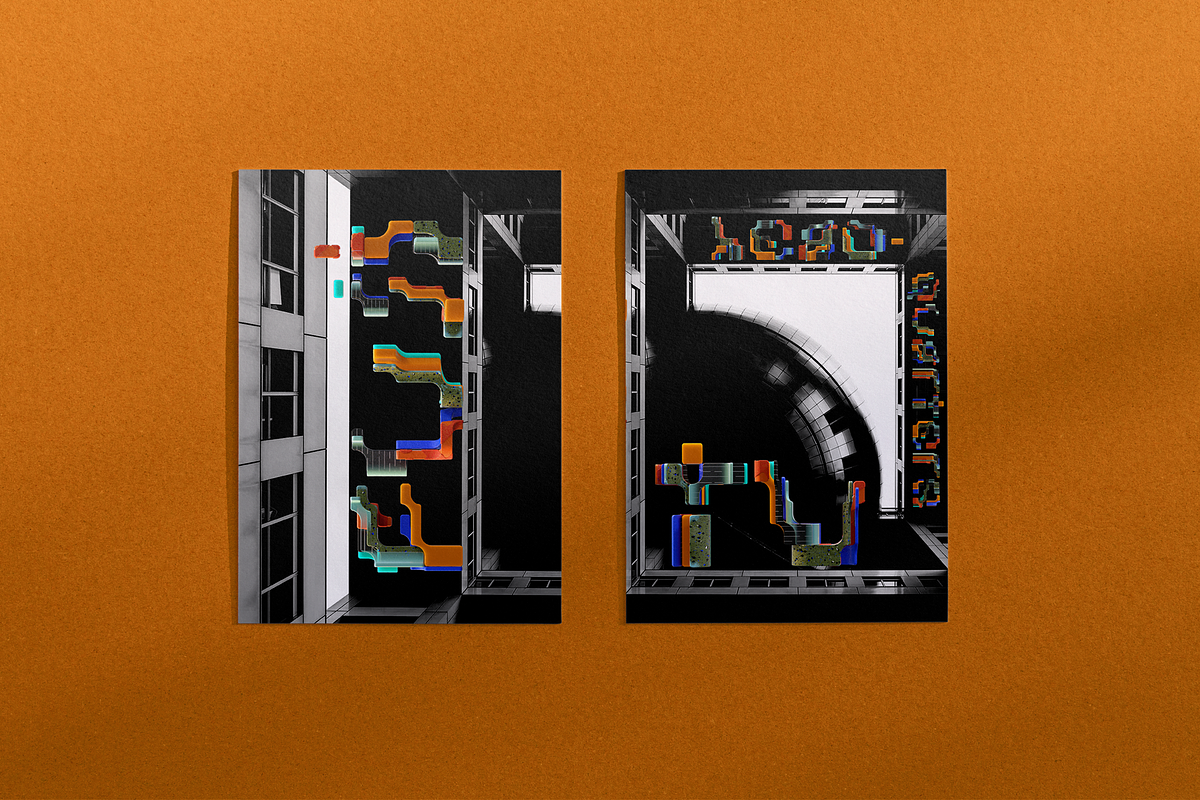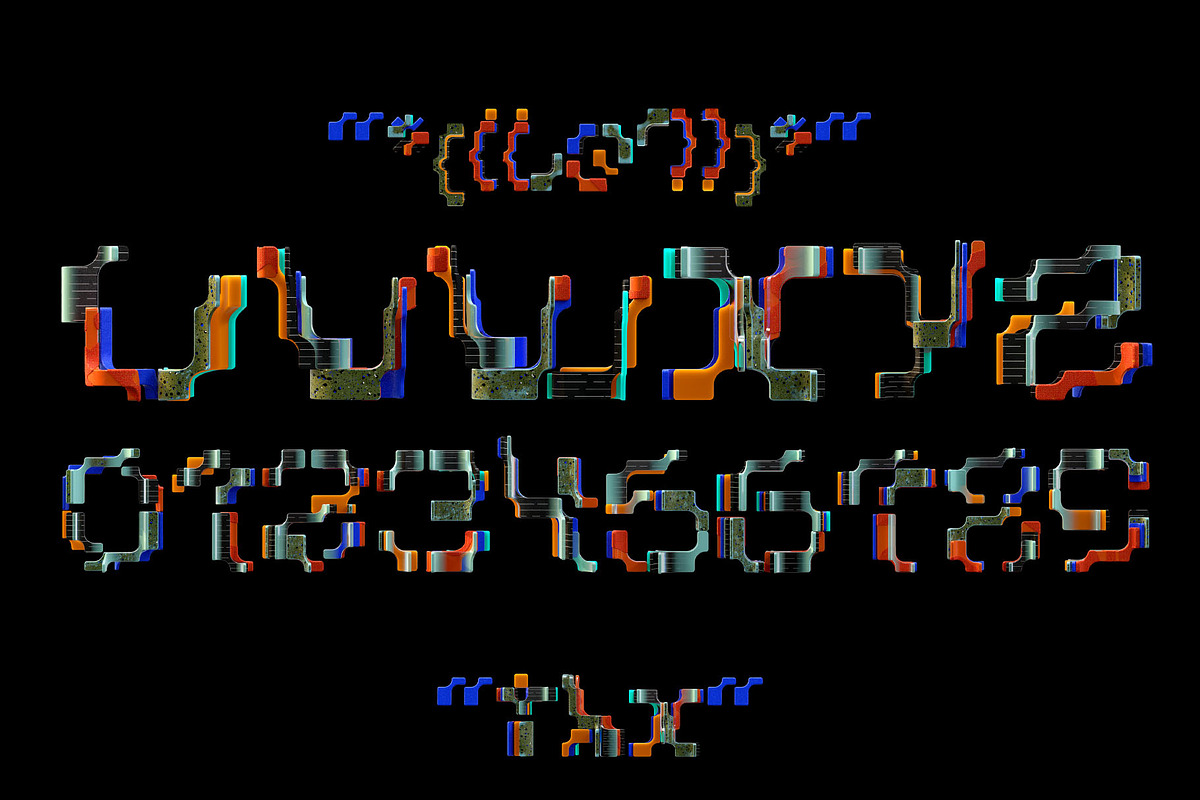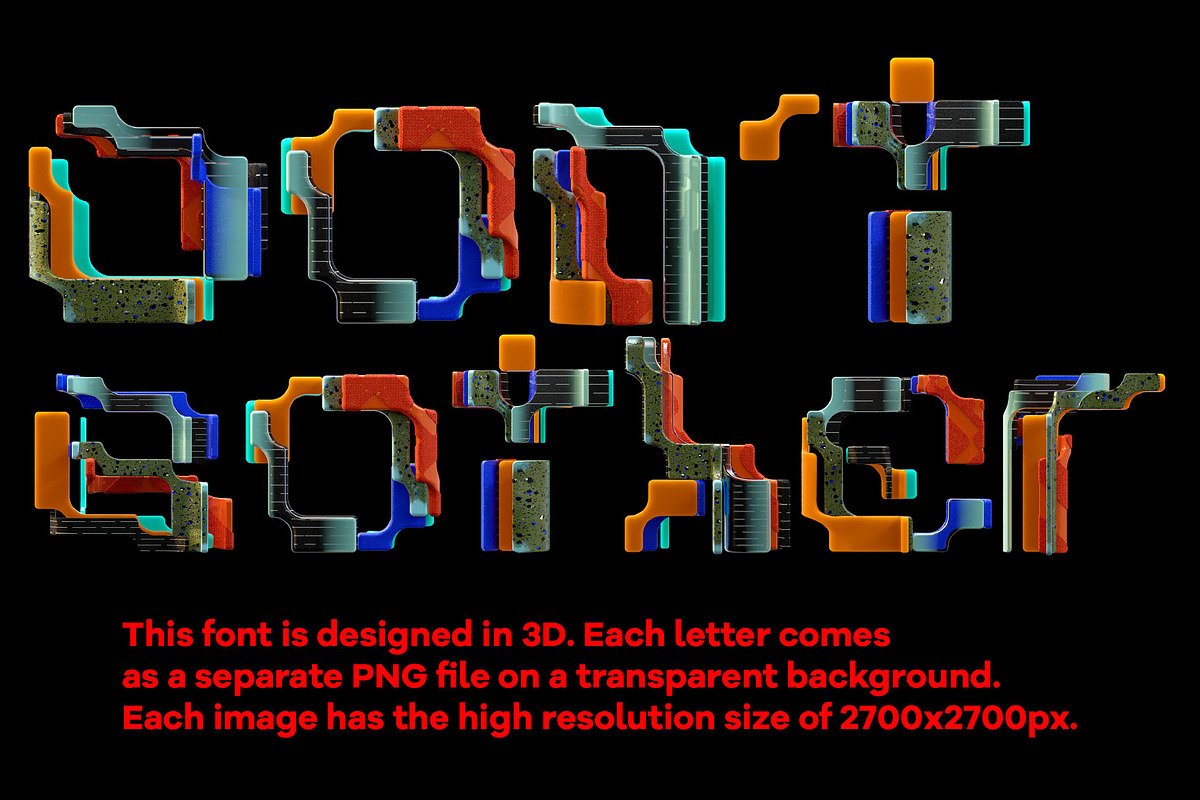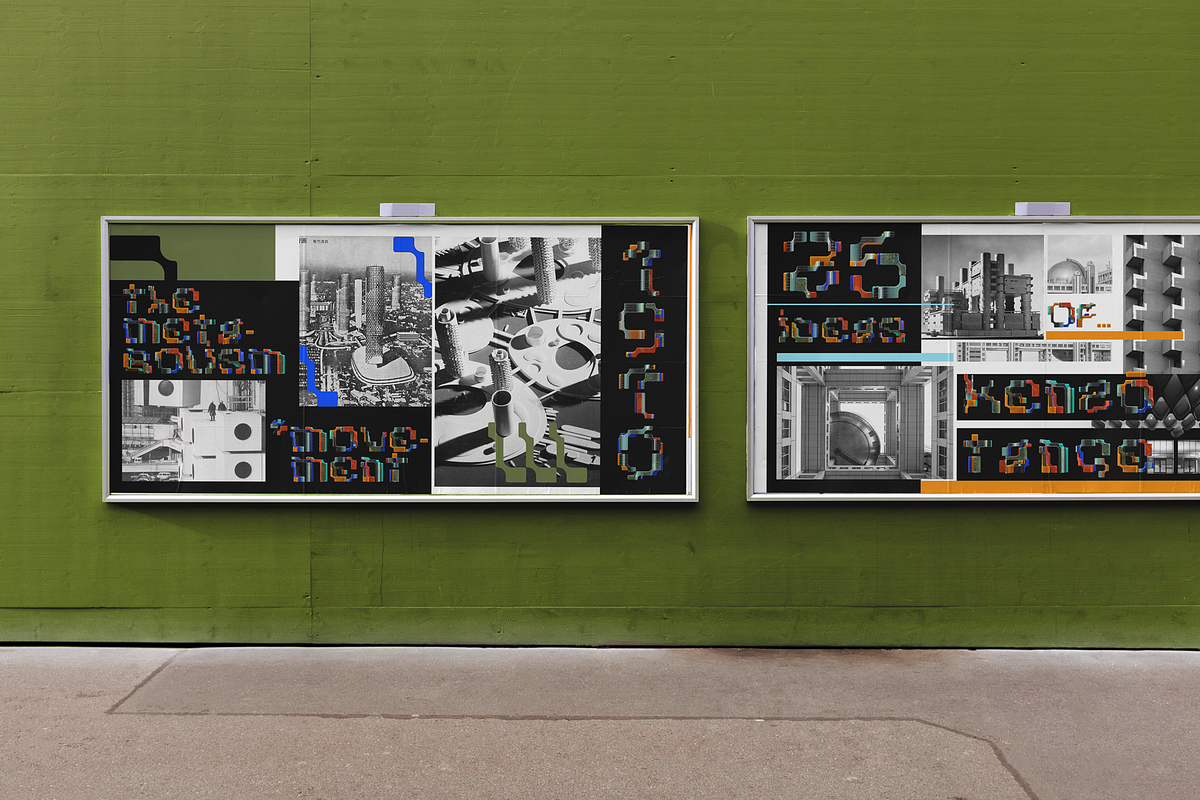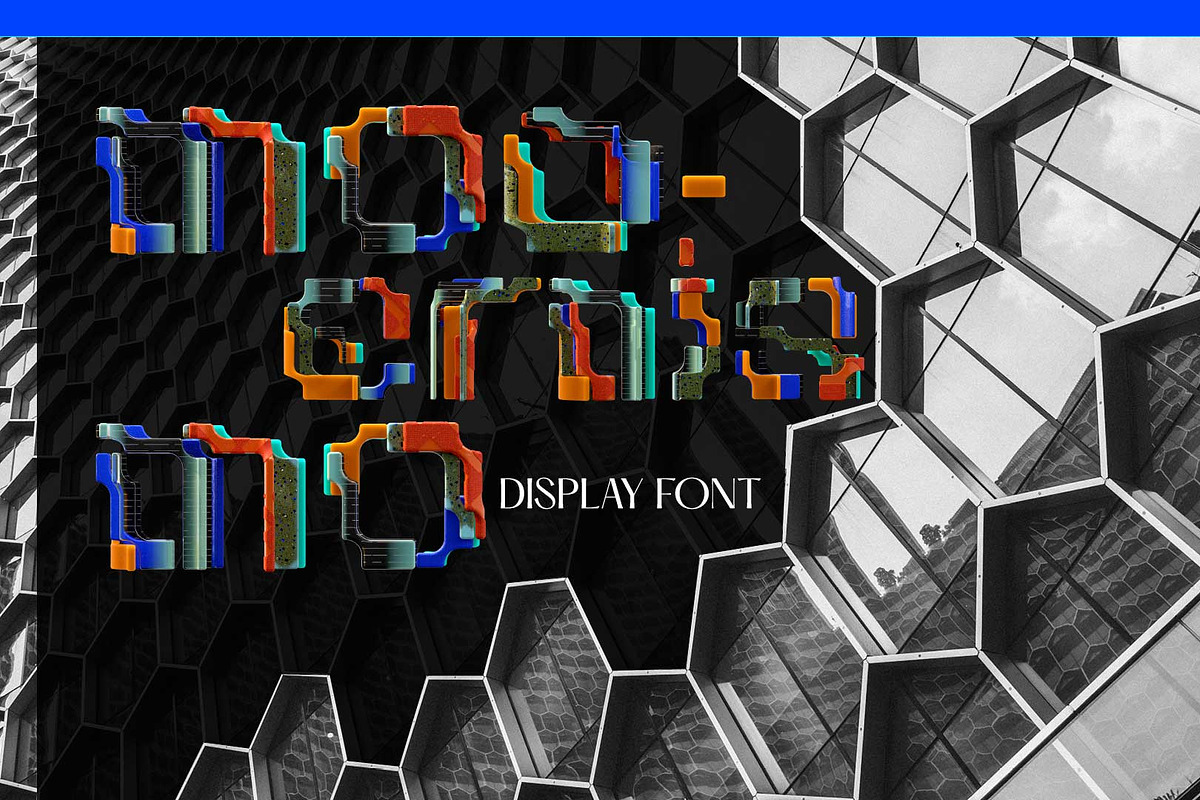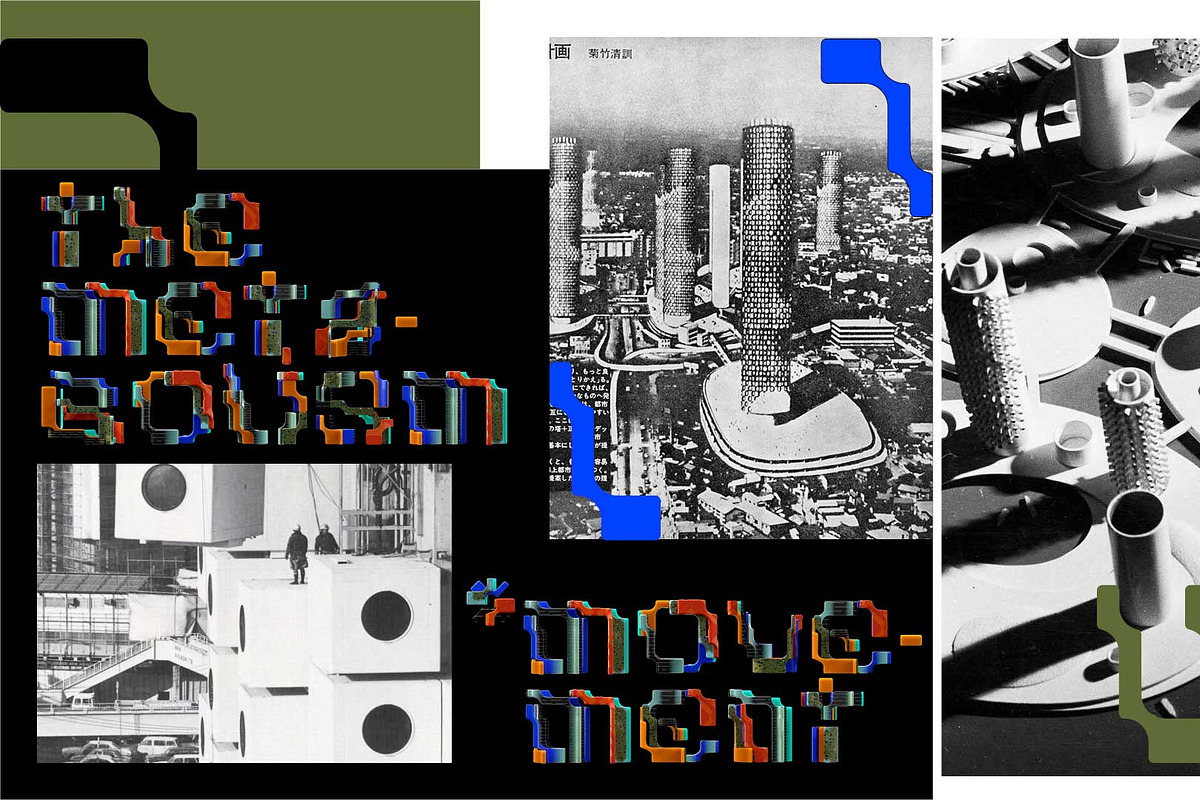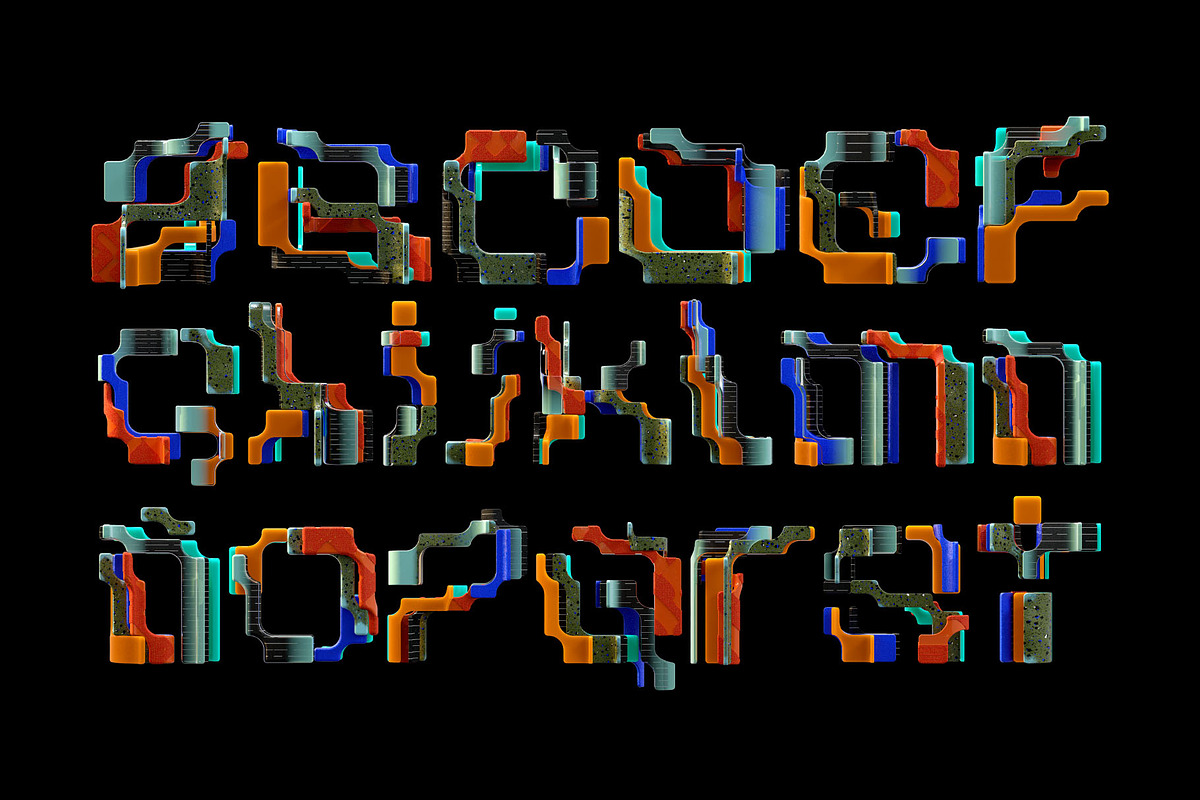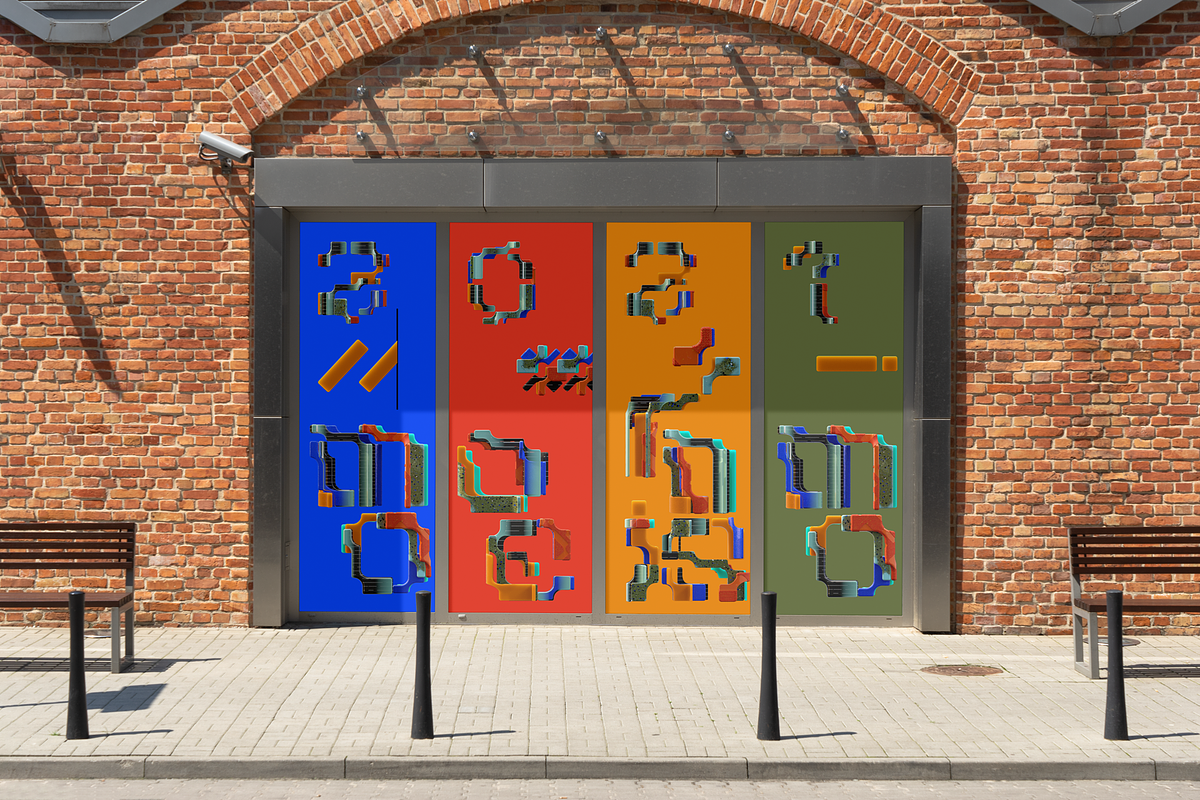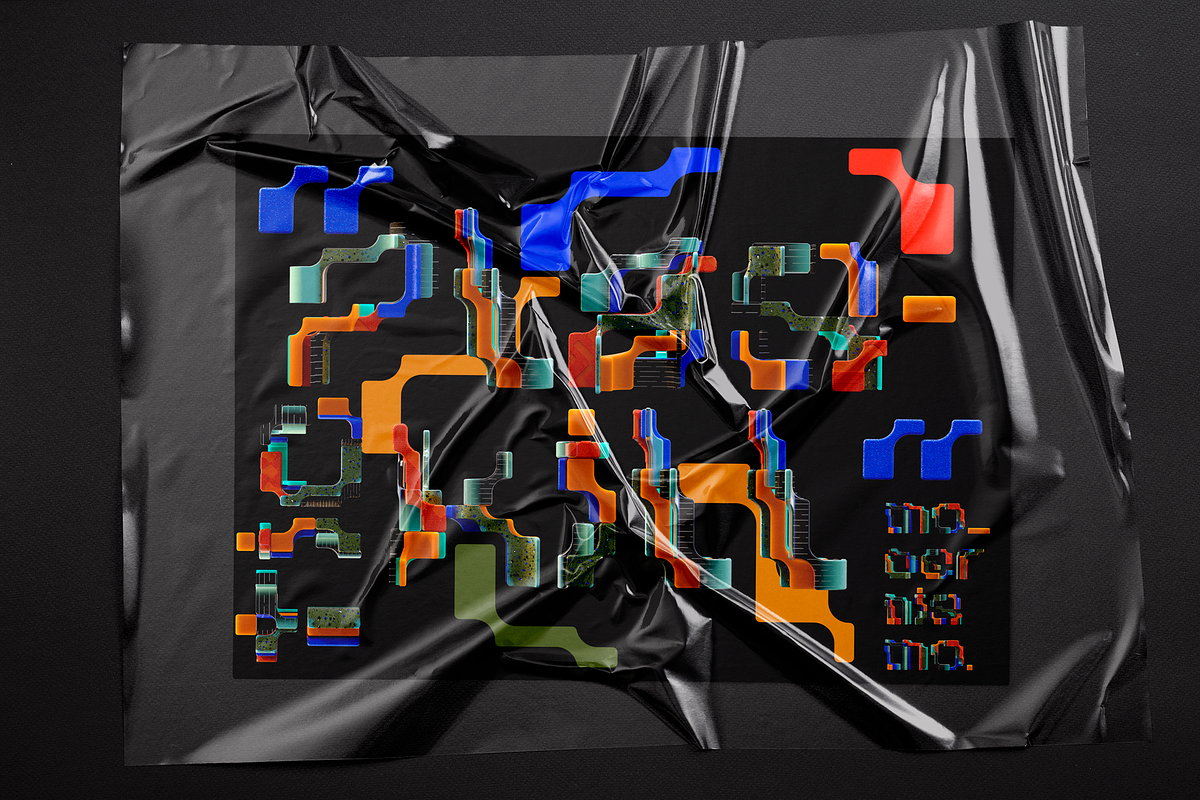
MOdernismo OpenType & SVG Font
Modernism type is an illustrated typeface, built and created modularly.
Represented through 3D illustration, conceived for its future functionality and use in graphic projects that require a high typographic presence.
Its concept evokes the modernist movement in architecture, with much avant-garde of the 21st century. The contrast between curves and lines make a dynamic visual game achieved through modular repetition.